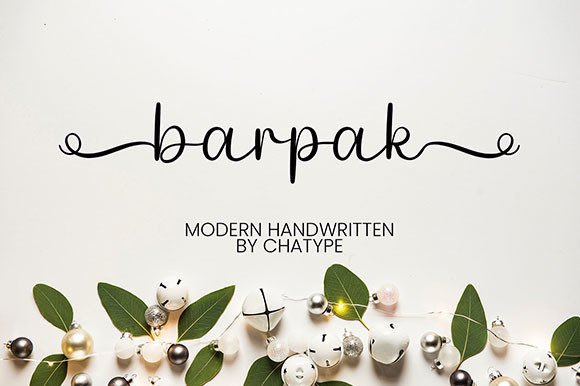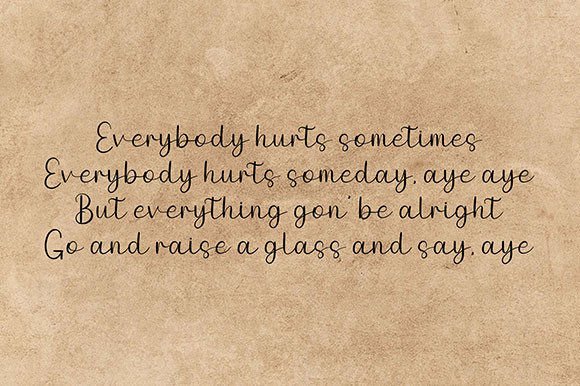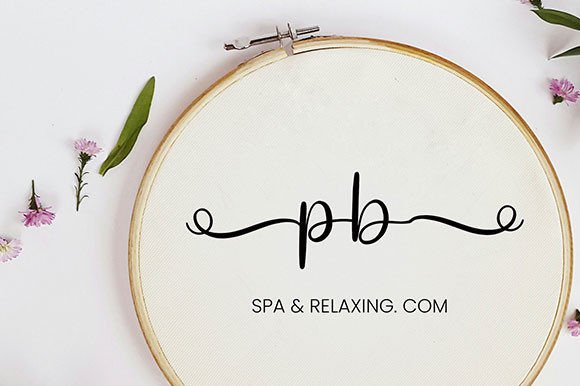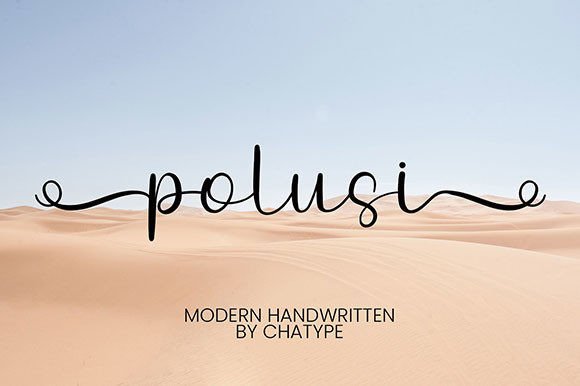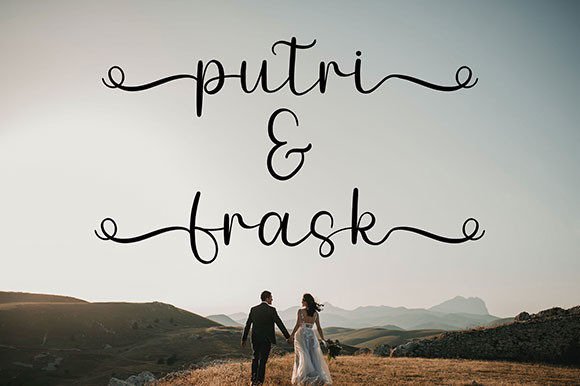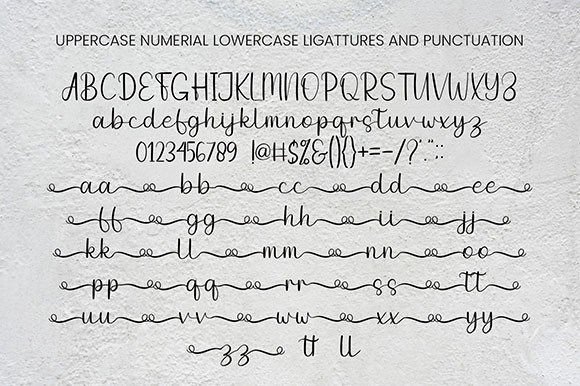
Introducing Berlin Font: Elevate Your Designs with Elegance and Sophistication
In the world of typography, a font can make or break a design. For designers and crafters looking for a touch of elegance and freshness, the Berlin Font is an excellent choice. This stunning script font is perfect for a wide range of projects, from quotes and logos to blog headers, posters, ribbons, fashion, clothing, letters, invitations, and stationery.
What Makes Berlin Font Stand Out?
Berlin Font is not just any ordinary font. Its unique blend of elegance and modernity makes it a versatile choice for various design needs. Here are some key features that set Berlin Font apart:
- Fresh and Elegant Design: Berlin Font boasts a fresh and elegant design that can instantly elevate your projects. Its script style is perfect for adding a touch of sophistication to any design.
- PUA Encoded: This font is PUA (Private Use Area) encoded, which means you can access all the glyphs and swashes easily. This feature makes it incredibly user-friendly, allowing you to explore a wide range of design possibilities.
- High Versatility: Whether you’re working on a logo, blog header, poster, or any other project, Berlin Font is suitable for a wide range of applications. Its versatility makes it a valuable addition to any designer’s toolkit.
Use Cases for Berlin Font
The Berlin Font is incredibly versatile and can be used for various projects, including:
- Quotes: Add a touch of elegance to your quotes with Berlin Font. Its script style is perfect for creating visually appealing and inspiring quotes.
- Logos: Create a lasting impression with a logo designed using Berlin Font. Its unique style can help your brand stand out.
- Blog Headers: Elevate your blog’s design with Berlin Font. Its fresh and elegant design is perfect for creating eye-catching headers.
- Posters: Whether you’re designing a poster for an event, product, or service, Berlin Font can add a touch of sophistication to your design.
- Ribbons and Banners: Add a touch of elegance to your ribbons and banners with Berlin Font. Its script style is perfect for creating visually appealing and stylish designs.
- Fashion and Clothing: Berlin Font is perfect for fashion and clothing designs. Its elegant design can add a touch of sophistication to any fashion-related project.
- Letters and Invitations: Create beautiful and elegant letters and invitations with Berlin Font. Its script style is perfect for formal and informal events.
- Stationery: Elevate your stationery designs with Berlin Font. Its fresh and elegant design is perfect for creating stylish and sophisticated stationery.
Why Choose Berlin Font?
With so many fonts available, why choose Berlin Font? Here are some reasons why Berlin Font stands out:
- Unique Design: Berlin Font boasts a unique design that can add a touch of elegance and sophistication to any project.
- Easy to Use: Its PUA encoding makes it easy to access all the glyphs and swashes, allowing you to explore a wide range of design possibilities.
- Highly Versatile: Berlin Font is suitable for a wide range of projects, making it a valuable addition to any designer’s toolkit.
In conclusion, Berlin Font is an excellent choice for designers and crafters looking for a fresh and elegant script font. Its unique design, PUA encoding, and high versatility make it perfect for a wide range of projects. Whether you’re working on a logo, blog header, poster, or any other project, Berlin Font can add a touch of sophistication and elegance to your design. So why wait? Download Berlin Font today and elevate your designs to the next level!